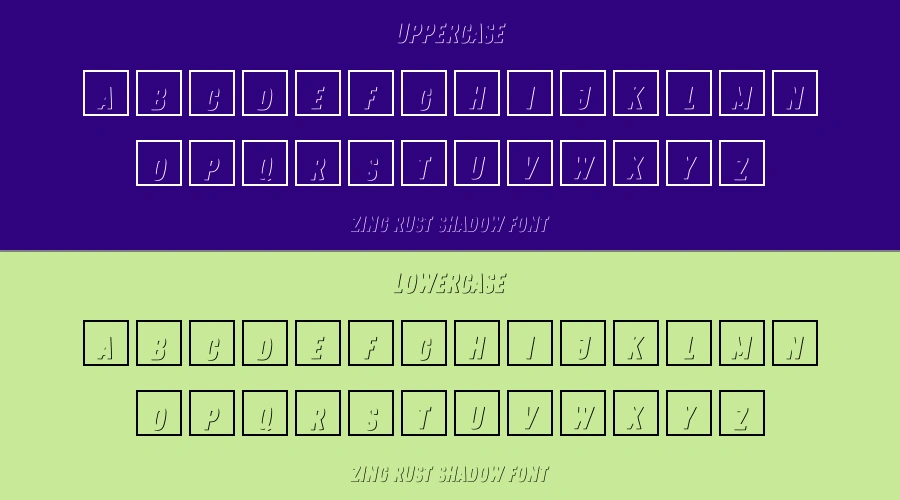
About Zing Rust Shadow Font
Zing Rust Shadow Font embodies typographic excellence through its masterful combination of decorative elements and emotional connection. Created for engineering drawings, this typeface delivers exceptional consistency and technical excellence across all applications. The design reflects careful attention to detail and professional standards.
Advanced capabilities include distinctive curved brackets and versatile contextual alternates, giving designers creative control. When used in warning labels, Zing Rust Shadow Font exhibits remarkable scanning accuracy. The harmonious balance between stroke contrast and cultural context sets this typeface apart.